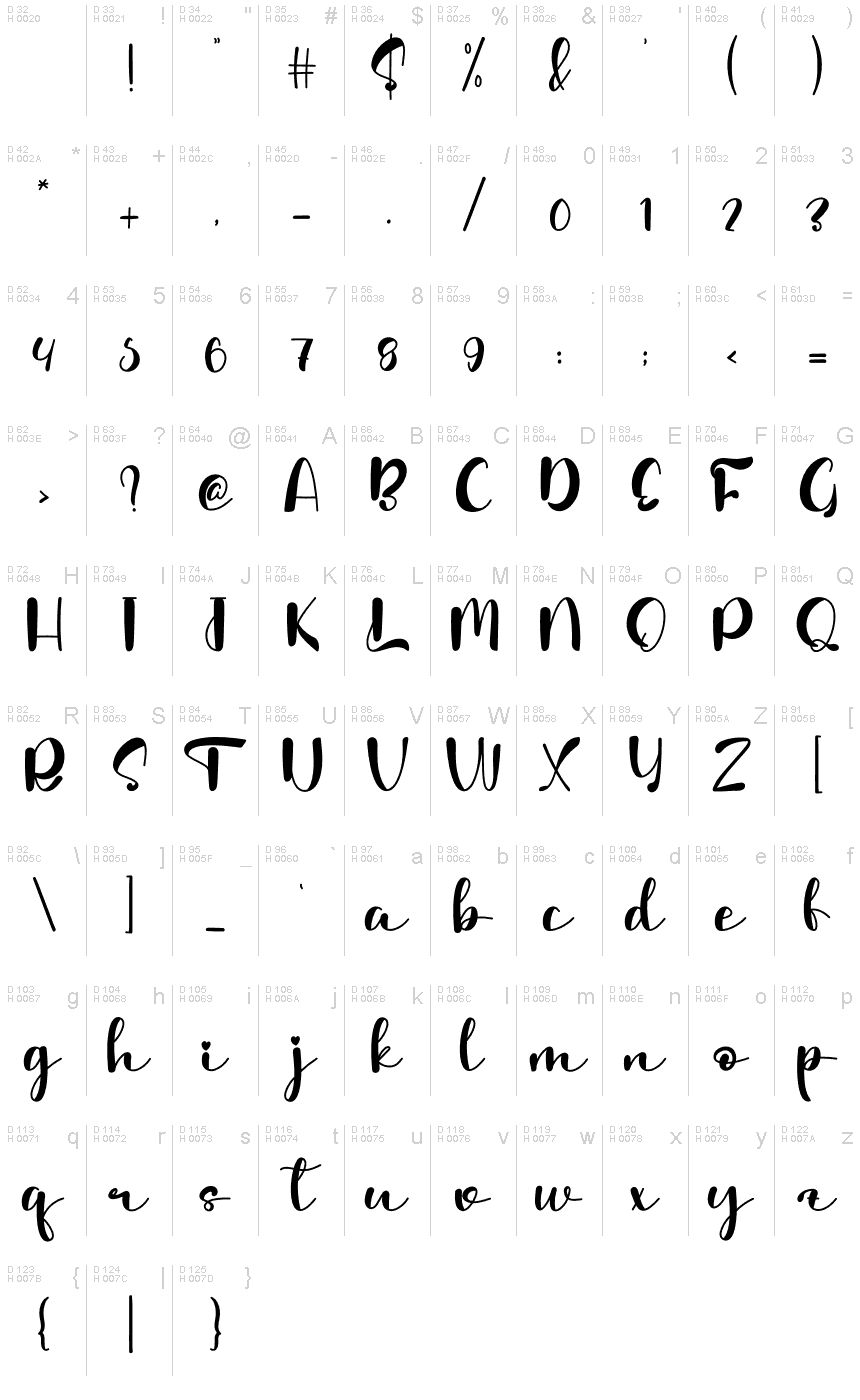
Mandala Romantic
Mandala Romantic is a unique, fun and friendly handwritten font designed by Letterpen. Whether you're looking for a font for Instagram or a calligraphy script for a DIY project, this font will turn any creative idea into a true work of art!